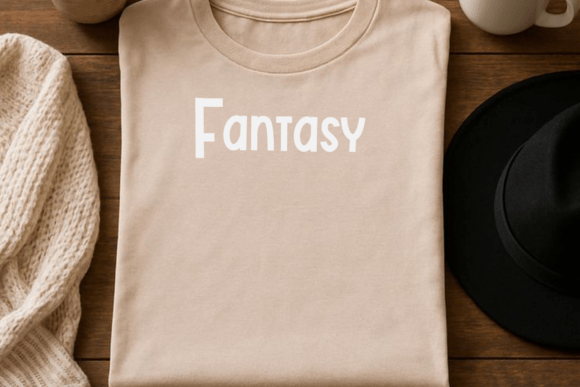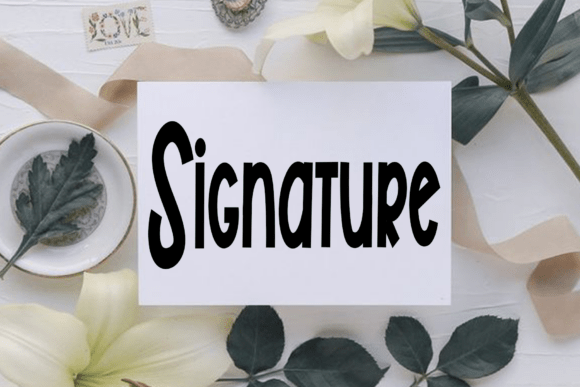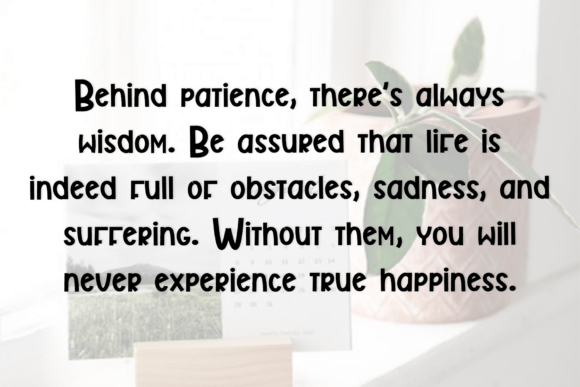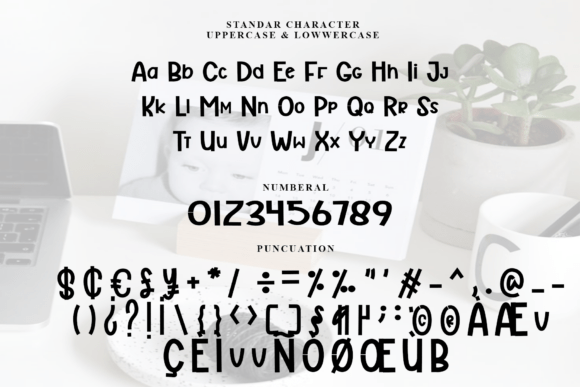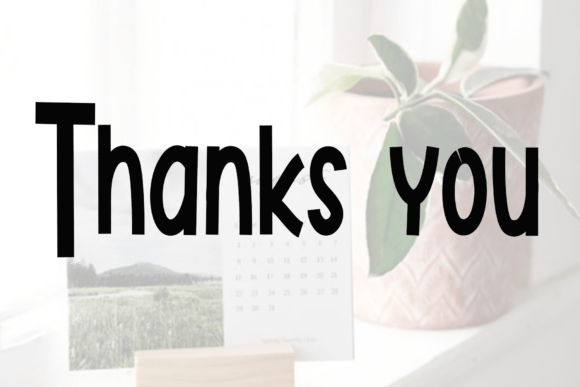
Introducing Calender Font: The Perfect Blend of Warmth and Personality
In the world of typography, fonts play a crucial role in conveying the tone and personality of a brand or design. If you’re looking for a font that exudes warmth, approachability, and a touch of modernity, look no further than Calender Font. This casual handwritten font is designed to capture the essence of authentic handwriting, making it perfect for a wide range of design applications.
The Characteristics of Calender Font
Calender Font boasts smooth strokes, natural curves, and easy-flowing letterforms that give it a unique and charming personality. The font’s design is characterized by:
- Smooth Strokes: Calender Font features smooth, fluid strokes that give it a natural and effortless look.
- Natural Curves: The font’s curves are organic and smooth, adding to its friendly and approachable feel.
- Easy-Flowing Letterforms: The letterforms in Calender Font are designed to flow seamlessly into each other, creating a sense of continuity and harmony.
The Benefits of Using Calender Font
Calender Font is an excellent choice for designers and crafters looking to add a personal touch to their designs. Here are some benefits of using Calender Font:
- Warmth and Personality: Calender Font radiates warmth and personality, making it perfect for designs that require a friendly and approachable tone.
- Versatility: The font is versatile and can be used for a wide range of design applications, including quotes, invitations, branding, and social media posts.
- Readability: Calender Font is designed to be highly readable, making it easy for your audience to understand and engage with your content.
- Charm: The font’s unique character and charm make it stand out from more traditional fonts, adding a touch of personality to your designs.
Ideal Use Cases for Calender Font
Calender Font is an excellent choice for a variety of design applications, including:
- Quotes: Add a personal touch to your quotes with Calender Font, making them more relatable and engaging.
- Invitations: Use Calender Font to create warm and inviting invitations for special occasions, such as weddings, birthdays, and baby showers.
- Branding: Calender Font is perfect for brands that want to convey a friendly and approachable tone, making it ideal for logos, packaging, and marketing materials.
- Social Media Posts: Use Calender Font to add a personal touch to your social media posts, making them more engaging and relatable to your audience.
Tips for Using Calender Font Effectively
To get the most out of Calender Font, here are some tips to keep in mind:
- Use it sparingly: While Calender Font is highly readable, it’s best to use it sparingly to avoid overwhelming your audience.
- Pair it with other fonts: Experiment with pairing Calender Font with other fonts to create a unique and visually appealing design.
- Adjust the size: Adjust the font size to ensure that it’s legible and visually appealing in your design.
Calender Font is a unique and charming font that adds a personal touch to any design. With its smooth strokes, natural curves, and easy-flowing letterforms, it’s perfect for designers and crafters looking to convey warmth and personality in their designs. Whether you’re creating quotes, invitations, branding materials, or social media posts, Calender Font is an excellent choice. So why not give it a try and see how it can elevate your designs?